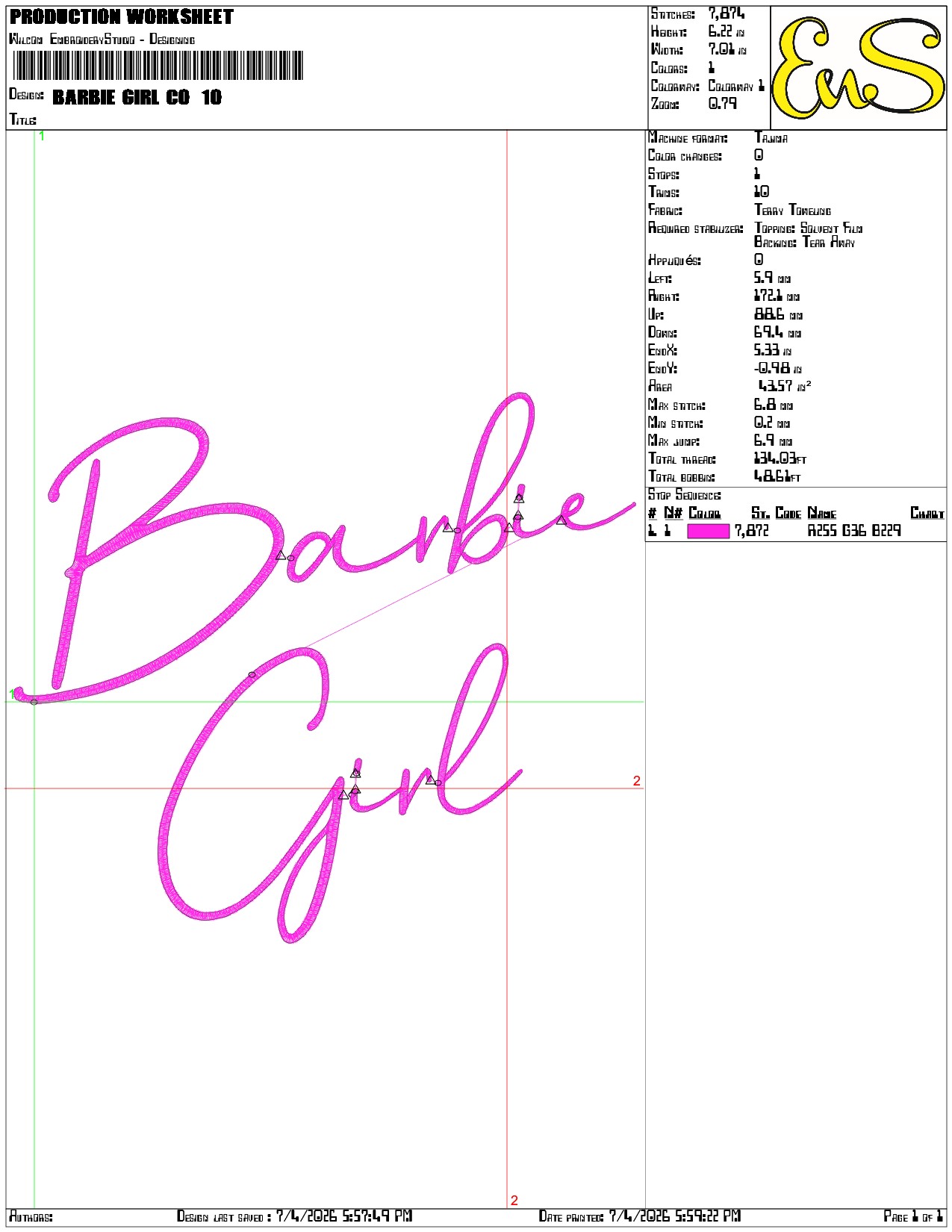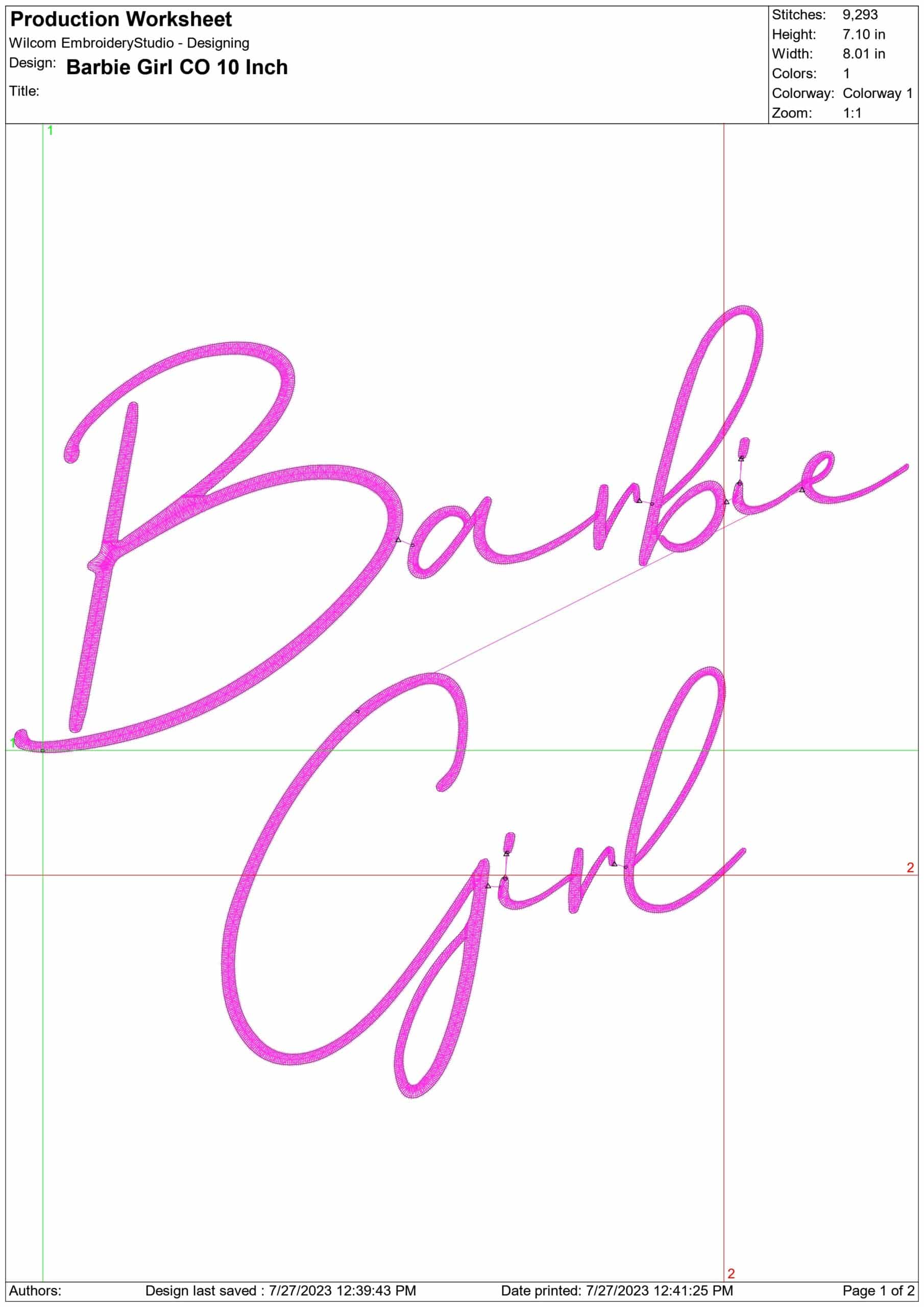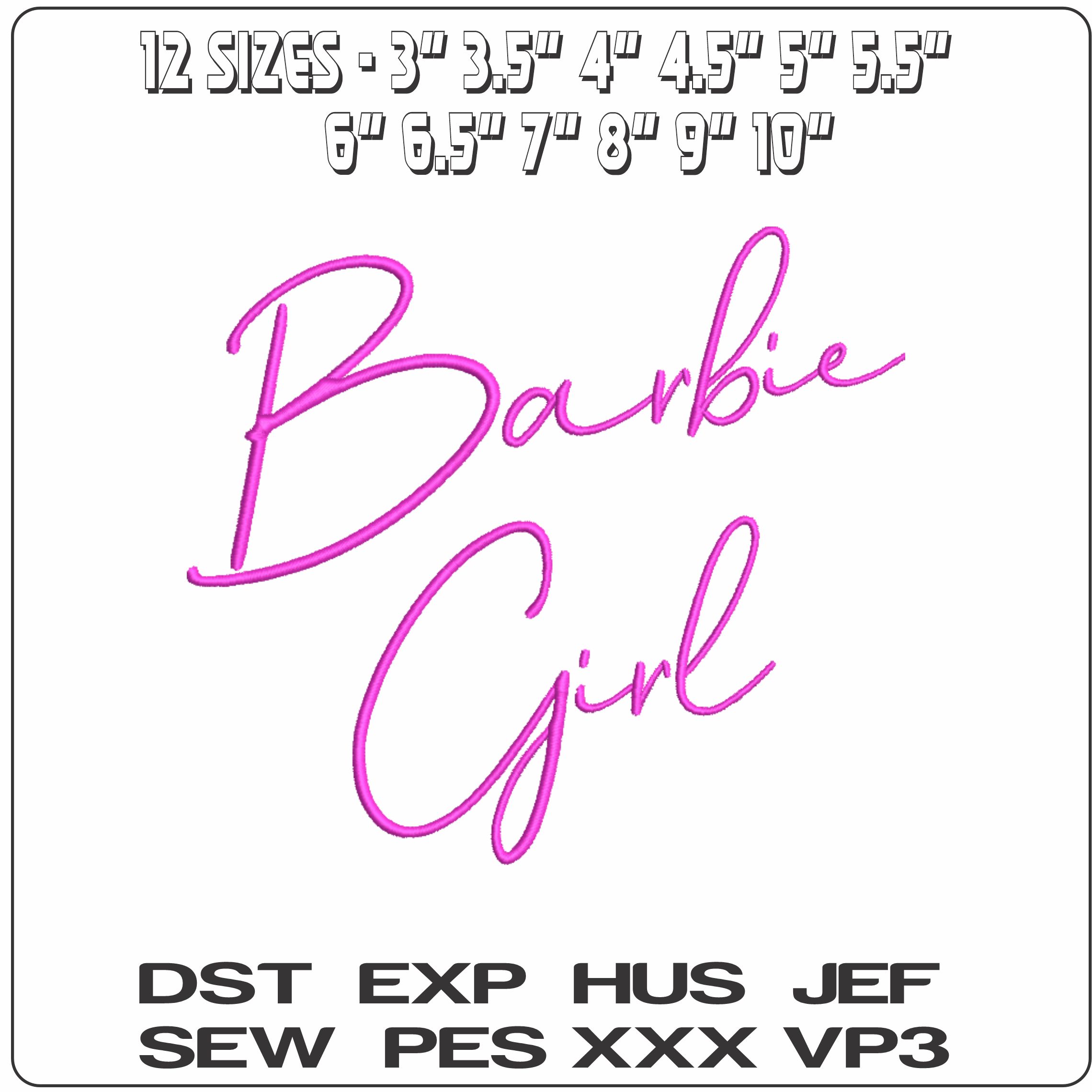
Soft pink "Barbie Girl" script adds a clean, fashion-led finish to tees, bags and bedroom accessories without looking heavy.
Add soft pink style to a project with this modern "Barbie Girl" text design, set in flowing cursive across a neat two-line layout. It has the familiar feminine feel of a logo-inspired script, making it a natural choice for Barbie fans, girls' clothing and playful personalised pieces for women who like a bright, polished look. The wording is the whole focus here, so it reads clearly and decorates without clutter.
Because it uses a single thread colour and an open, lightly stitched build, it suits fabrics where you want the lettering to sit cleanly rather than feel bulky. Stitch it on T-shirts, sweatshirts, pyjama tops, canvas totes, make-up bags or cushion covers where the pink script can stand out. It also works well in a frame, giving you a simple statement piece for a bedroom, dressing area or craft corner.